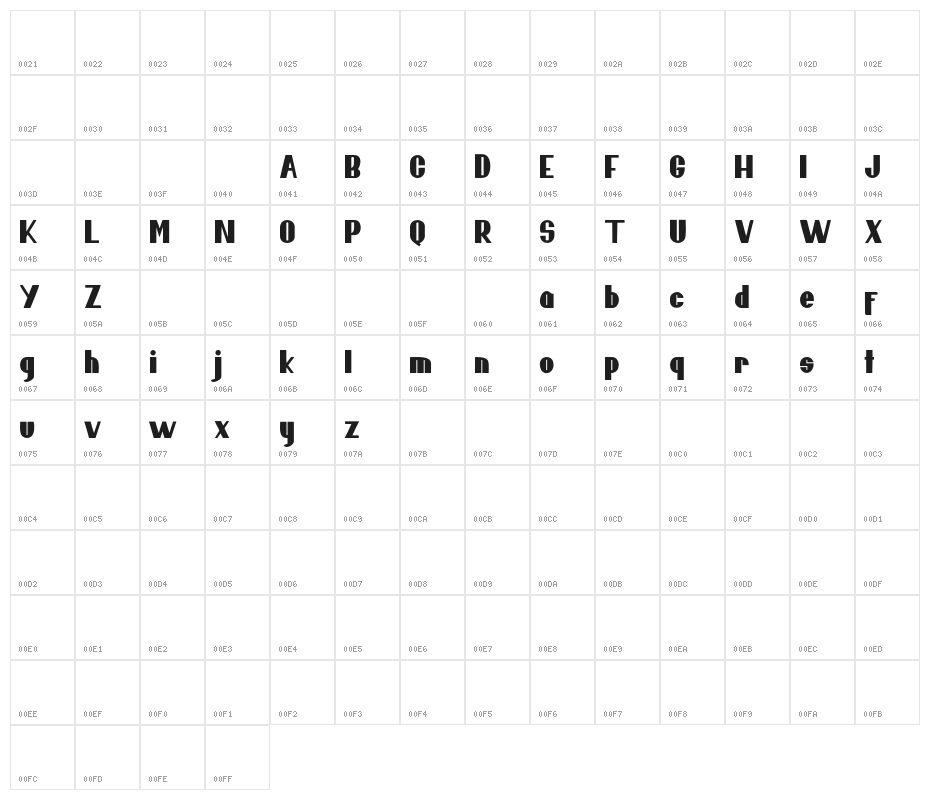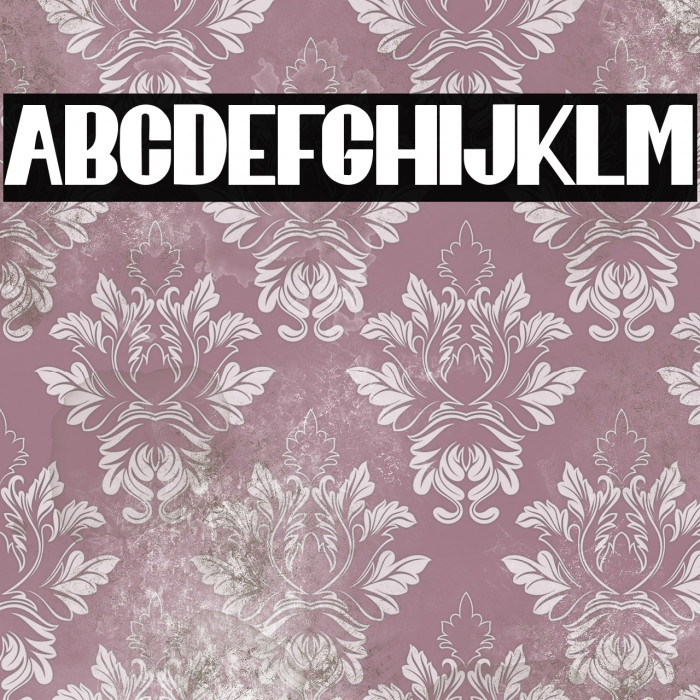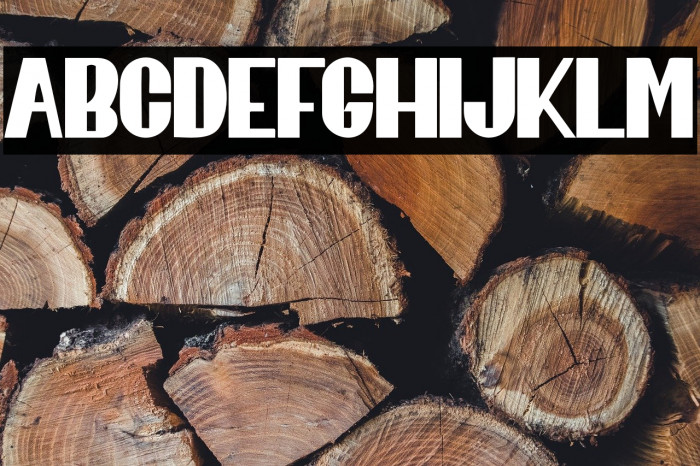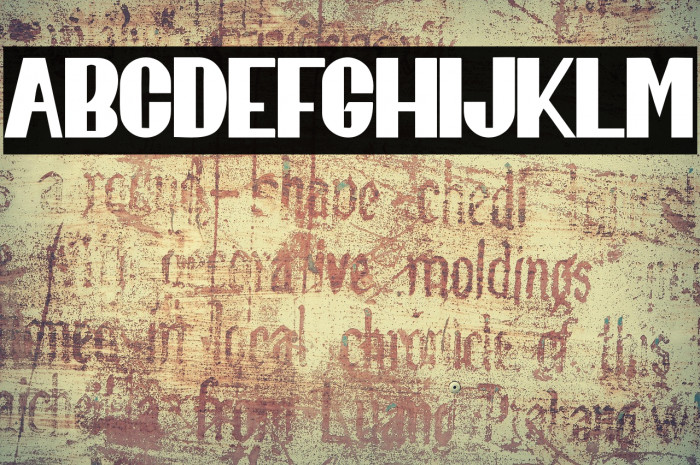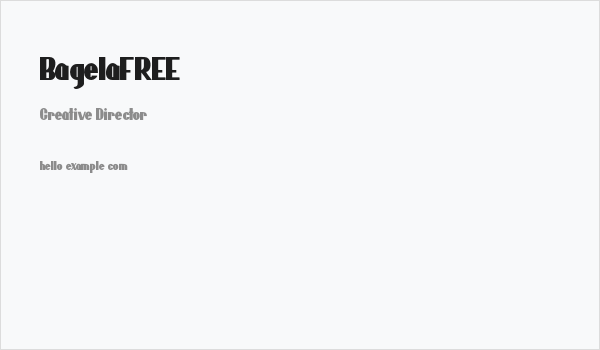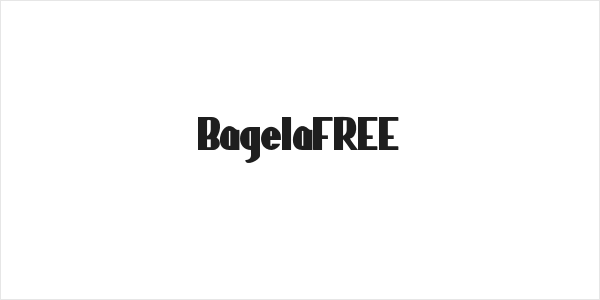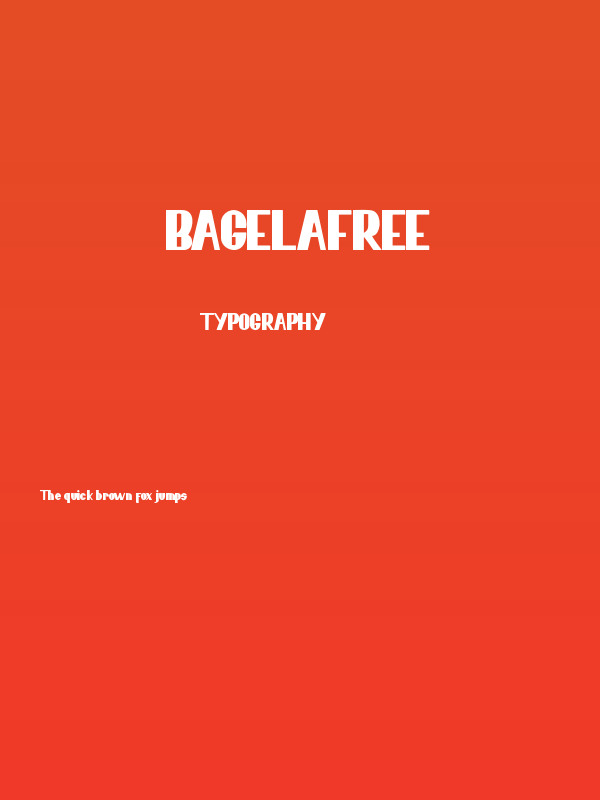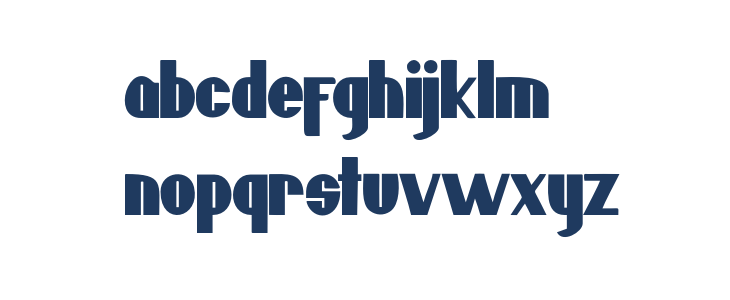
BagelaFREE Font
BagelaFREE Description
This font features bold, geometric letterforms with a strong presence. The uppercase letters are particularly striking, with a blocky and angular design that commands attention. The lowercase letters maintain the boldness but introduce some softer curves, creating a dynamic contrast within the typeface. The overall style is modern and somewhat experimental, making it ideal for projects that require a distinctive and impactful visual element. The font's unique character shapes and heavy weight make it suitable for headlines and display purposes where readability and style are paramount.
| Proposed Projects | Ideal for branding, posters, headlines, and any design project requiring a bold statement. |